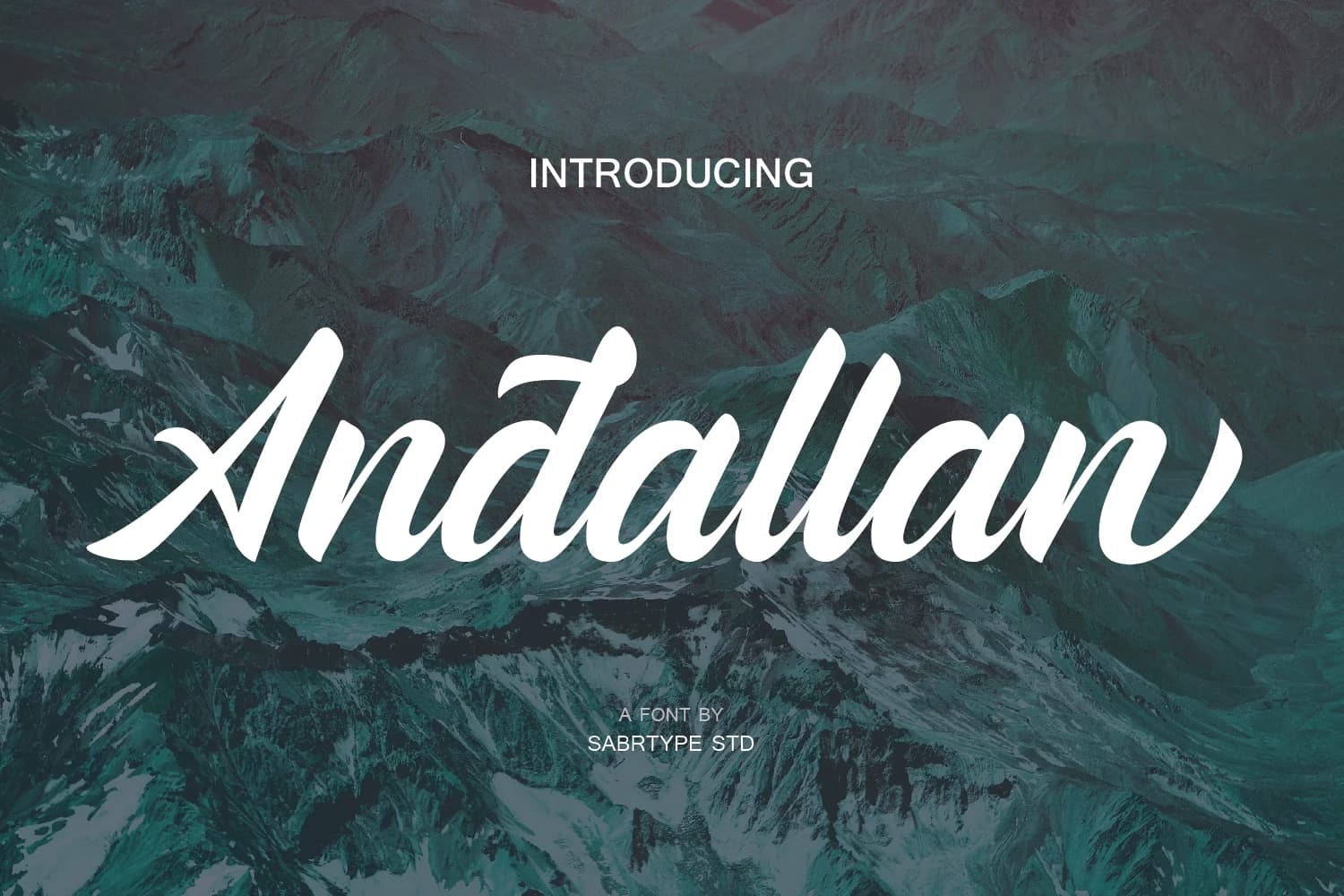
Andallan by sabrcreative is a handlettered script font that blends contemporary aesthetics with subtle vintage charm. The typeface features smooth, flowing letterforms that maintain excellent readability across both digital and print applications, making it remarkably versatile for designers seeking distinctive character with refined elegance. This font excels in projects where personality and authenticity matter most. Wedding invitation suites gain an intimate, artisanal touch with Andallan's organic strokes and graceful movement, while boutique branding, from coffee shop logos to handmade jewelry labels, benefits from the font's inherent warmth and visual distinction. The clean lines work equally well for social media graphics that need to stand out in crowded feeds, event stationery designs that want something more distinctive than standard options, and packaging labels for specialty product lines seeking a handcrafted aesthetic. The display-friendly design makes it particularly suited for headers, logotypes, and poster artwork where visual impact is essential. Its handcrafted quality appeals to creative entrepreneurs and small business owners who need fonts that feel authentic and intentional rather than generic and templated. Whether designing brand identity systems, editorial layouts, or artistic promotional materials, Andallan brings character without compromising legibility. Discover Andallan Font on Creative Fabrica and add this sophisticated handlettered script to your design collection.
- Elegant, Flowing, Andallan
Andallan Font is a script font that shines as a display or heading face. Pair it with a clean sans-serif or serif font for body text β the contrast creates a clear hierarchy while the two styles stay balanced and easy to read.
Andallan Font